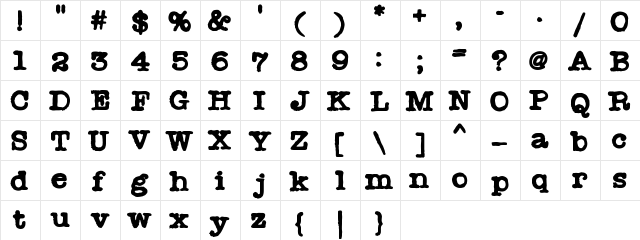
Radio Newsman Regular Font Preview
Radio Newsman Regular
Radio Newsman Regular Font Details
| Designer | Shara Weber |
Design Context for Radio Newsman Typeface
Radio Newsman takes a measured approach to typography — its balanced proportions and neutral character make it a reliable workhorse for both digital and print work.
Pro Tip: Use Radio Newsman in both headline and body roles to test its range before committing to a single application.